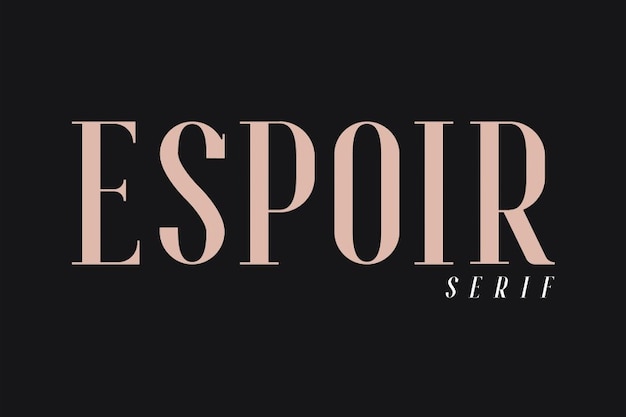
Espoir Serif Font
It is the embodiment of timeless sophistication. With its delicate serifs and graceful curves, it effortlessly blends the elements of fancy, classic, and modern design. Whether you're creating a luxurious wedding invitation, an upscale magazine layout, or a high-end logo, this font exudes an air of refinement and elegance that's perfect for those who crave the finer things in design.